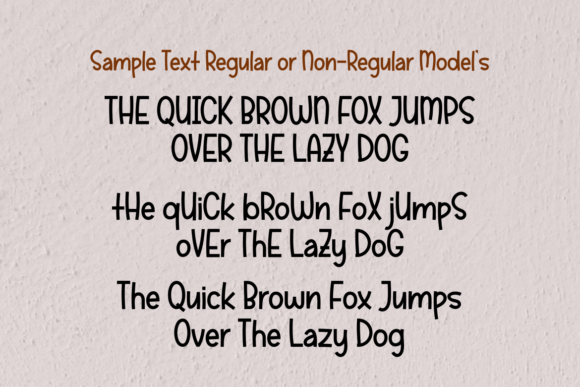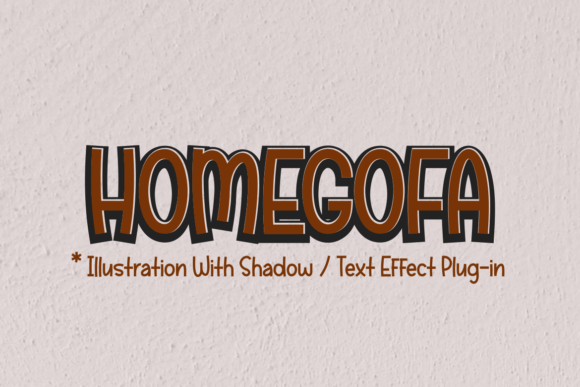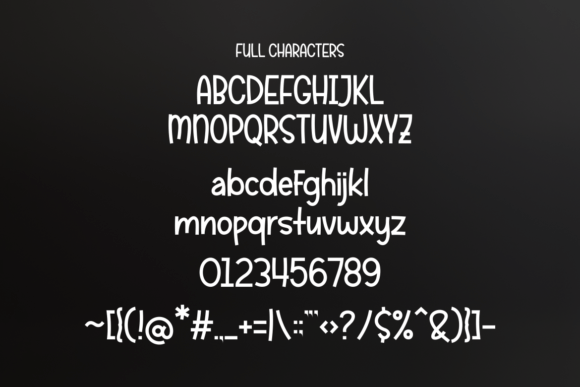
Introduction to Homegofa Font
As a designer, have you ever found yourself stuck in a creative rut, struggling to come up with the perfect font to bring your project to life? I know I have. But then, I stumbled upon the Homegofa Font, and everything changed. This delightful children’s edition font from the simple script family is a game-changer for any design project that needs a touch of whimsy and fun.
What sets the Homegofa Font apart is its unique design, made thicker than usual to make it easier to read, even on a transparent background. Whether you’re working on a high-quality picture book, designing a toy or a park attraction, or creating a fun and engaging tourist attraction, this font is a must-have in your design resource arsenal.
Key Features of Homegofa Font
- Unique and Creative Design: The Homegofa Font offers a distinctive and creative design that makes it perfect for any design project, whether it’s a logo, poster, or brochure.
- Transparent Background: The Homegofa Font features a transparent background, allowing you to easily layer it over other design elements and create a seamless visual effect.
Honest Review: Homegofa Font
As a designer, I’m always on the lookout for high-quality design resources to elevate my creative projects. The Homegofa Font caught my eye with its sleek and modern aesthetic.
- ✨ The font’s transparent background makes it incredibly versatile, allowing me to use it on a variety of design elements, from logos to social media graphics.
- ✨ The high quality of the font ensures that it looks great at any resolution, making it perfect for both web and print design.
- ✨ The font’s clean and minimalistic design makes it an excellent choice for any creative project, from fashion to tech.
Overall, I’d say the Homegofa Font is a solid addition to any designer’s toolkit. While it’s not without its limitations, its high quality and versatility make it a great choice for any creative project.
The Homegofa Font is a high-quality design resource ideal for creative projects that require a unique and stylish touch. With its transparent background and versatile style, it’s perfect for designers looking to elevate their work.
The Homegofa Font is perfect for:
- Designing logos and branding materials
- Creating social media graphics and posts
- Designing presentations and documents
- Adding a touch of elegance to your creative projects